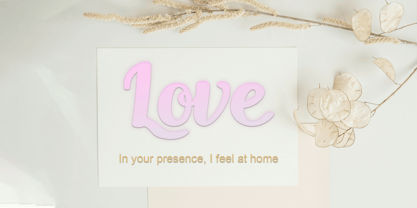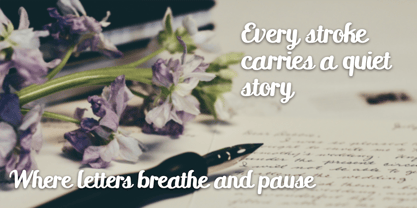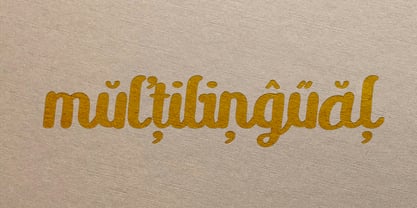
Velyrix
by ZorkSlide
The Velyrix Font Family was designed by Zuhayr Zunayra and published by ZorkSlide. Velyrix contains 1 styles. More about this family
Velyrix is a smooth handwritten typeface that blends natural flow with gentle confidence. Designed with soft curves and relaxed strokes, Velyrix captures the feeling of personal notes, quiet romance, and expressive simplicity. Each letter moves organically, creating a warm and approachable rhythm while remaining clean and readable. The subtle variations in stroke give the font a human touch—perfect for designs that want to feel sincere, calm, and emotionally connected. Velyrix works beautifully for branding, love quotes, social media posts, invitations, packaging, and creative projects that need a handwritten voice without feeling messy or overwhelming. Simple, expressive, and heartfelt — Velyrix lets your words speak softly, yet clearly.
Designers: Zuhayr Zunayra
Foundry: ZorkSlide